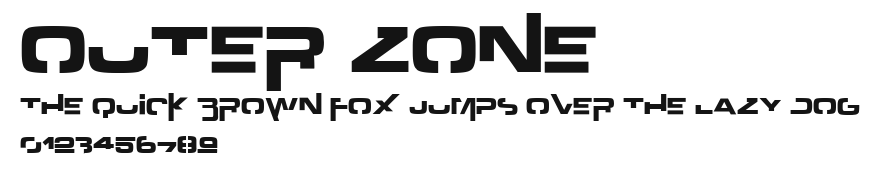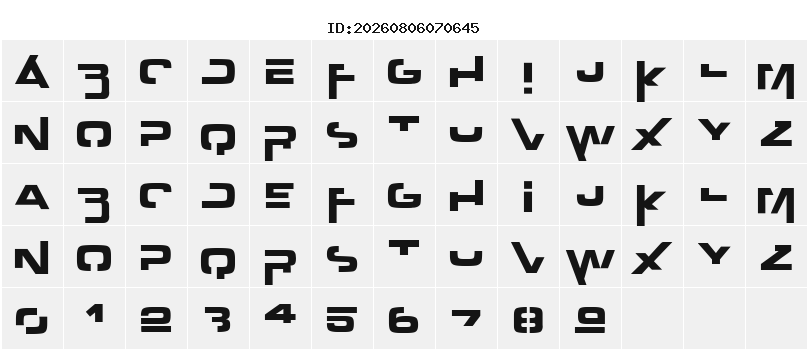
Outer zone Preview
• Font Name: Outer zone
• Full Font Name: Outer zone
• Version: Version 1.00 January 2, 2011, initial release
About Outer zone.ttf
Outer zone.ttf is a modern, elegant sans-serif font designed for ultimate readability and visual harmony. Perfect for branding, headlines, web design, and print materials.